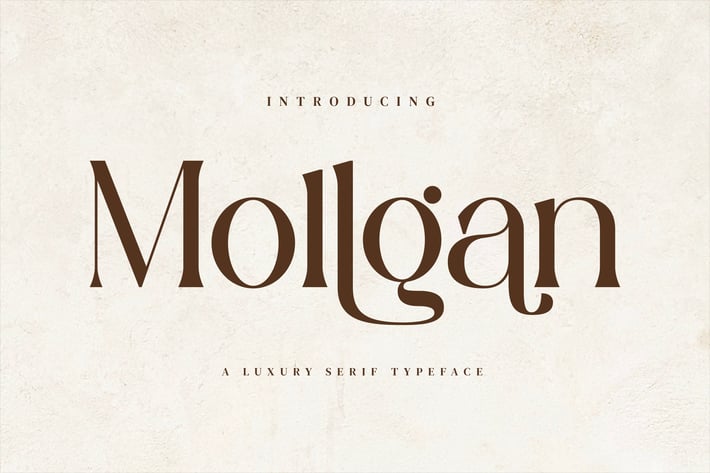
Mollgan Luxury Serif Font
Mollgan Stylish Ligature Typeface, inspired by the famous minimalist logo perfect for the purposes of designing templates, brochures, videos, advertising branding, logos and more.